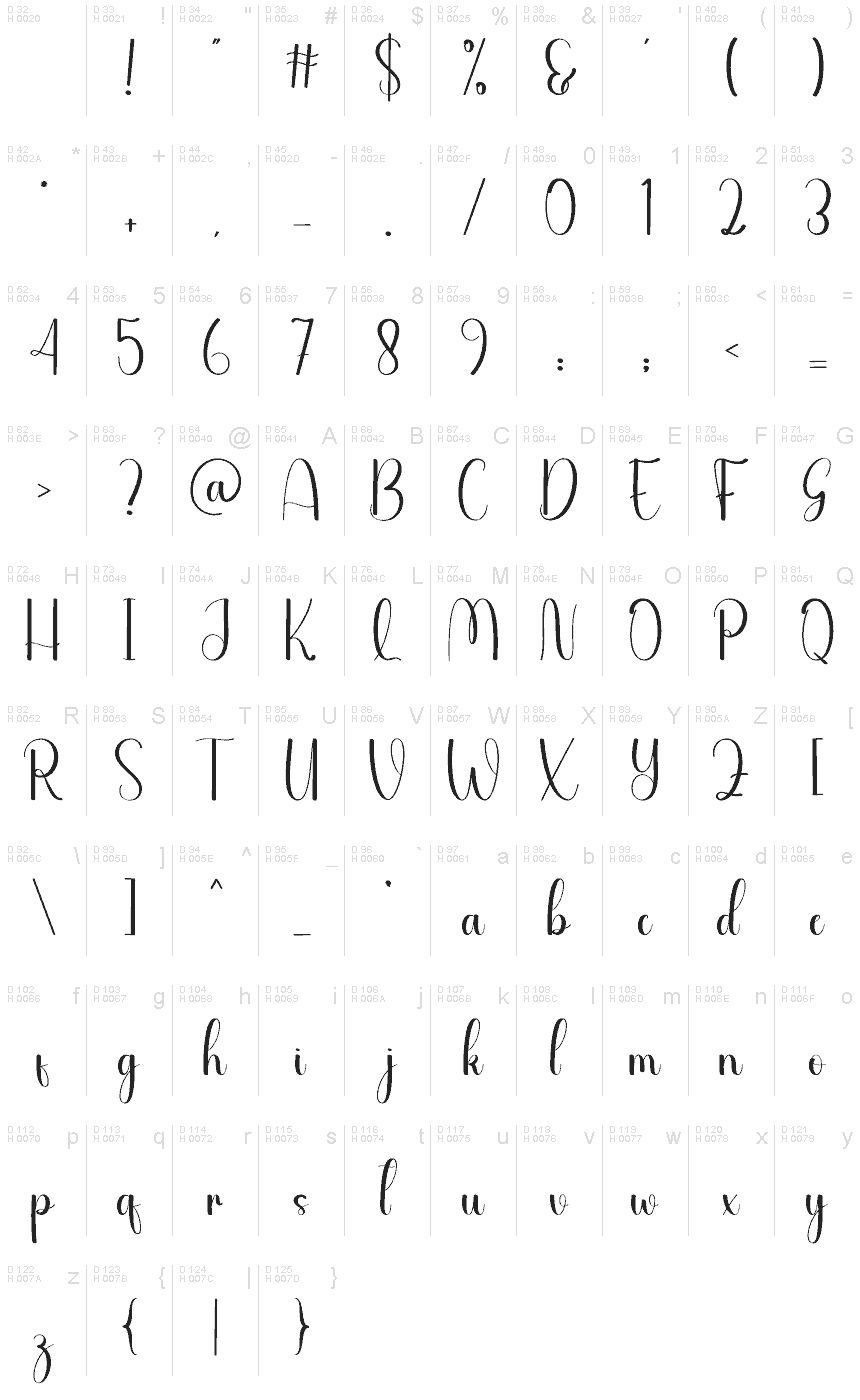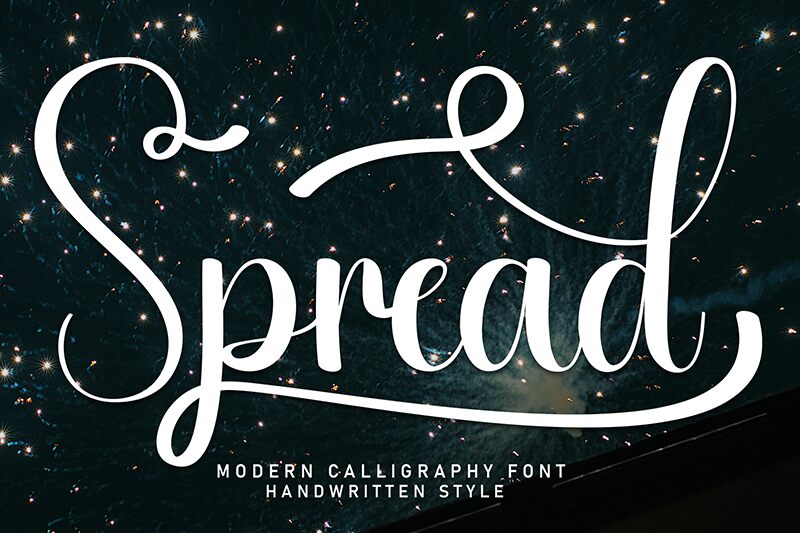
Spread
Spread font is a free calligraphy font designed by Andi Moz. Elegant, sophisticated, and expressive in nature, Spread carries its unique identity with its flowing lines that mark an inviting presence on the page. With calligraphic influences, this display font has an artistic personality with equally rich legibility.